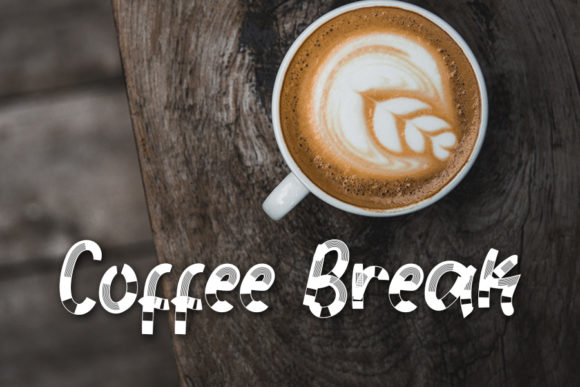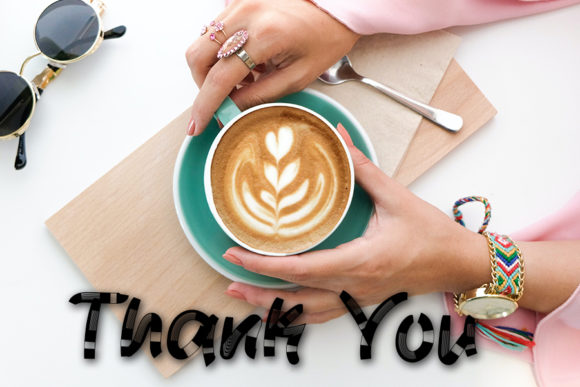
Unleash Your Creativity with Black Line White Font
Are you a designer, crafter, or DIY enthusiast looking for a unique font to elevate your projects? Look no further than the Black Line White font, a spectacular display font that’s sure to bring any creation to life. In this article, we’ll dive into the world of Black Line White, exploring its features, benefits, and uses, as well as provide tips and inspiration for incorporating this stunning font into your work.
What is Black Line White Font?
Black Line White is a bold, eye-catching font that’s characterized by its striking black lines and crisp white text. This font is perfect for making a statement, adding a touch of sophistication, and creating a visually appealing contrast. Its unique design makes it an excellent choice for DIY projects, crafts, and designs that require a distinctive look.
Key Features of Black Line White Font
- Bold and striking design: The Black Line White font features thick, bold lines that create a dramatic effect, making it perfect for headlines, titles, and emphasis text.
- High contrast: The combination of black lines and white text provides exceptional contrast, making it easy to read and visually appealing.
- Unique and distinctive: The Black Line White font has a one-of-a-kind design that sets it apart from other fonts, ensuring your projects stand out from the crowd.
- Versatile: This font can be used for a wide range of projects, from DIY crafts and signs to digital designs and marketing materials.
Benefits of Using Black Line White Font
So, why choose Black Line White font for your projects? Here are just a few benefits:
- Adds visual interest: The striking design of Black Line White font adds a touch of excitement and energy to any project.
- Enhances readability: The high contrast between the black lines and white text makes it easy to read, even from a distance.
- Creates a professional look: The bold, sophisticated design of Black Line White font gives your projects a professional, polished appearance.
- Inspires creativity: The unique design of this font can spark your creativity and inspire new ideas for your projects.
Using Black Line White Font in DIY Projects
Black Line White font is an excellent choice for DIY enthusiasts and crafters. Here are some ideas for using this font in your projects:
- Signs and posters: Use Black Line White font to create eye-catching signs and posters for your home, business, or events.
- Craft projects: Add a touch of sophistication to your craft projects, such as scrapbooking, card making, and jewelry design.
- Home decor: Use Black Line White font to create decorative items, such as wall art, stencils, and decals.
- Party decorations: Create custom party decorations, such as banners, garlands, and signs, using Black Line White font.
Tips for Working with Black Line White Font
To get the most out of Black Line White font, here are some tips to keep in mind:
- Use it sparingly: Due to its bold design, Black Line White font can be overwhelming if overused. Use it sparingly to create emphasis and visual interest.
- Pair it with complementary fonts: Combine Black Line White font with complementary fonts to create a visually appealing contrast.
- Experiment with colors: While the classic black and white combination is striking, feel free to experiment with other colors to create unique effects.
In conclusion, Black Line White font is a spectacular display font that’s perfect for designers, crafters, and DIY enthusiasts looking to add a touch of sophistication and visual interest to their projects. With its bold design, high contrast, and versatility, this font is sure to bring any creation to life. So, why not give Black Line White font a try and see the impact it can have on your work?